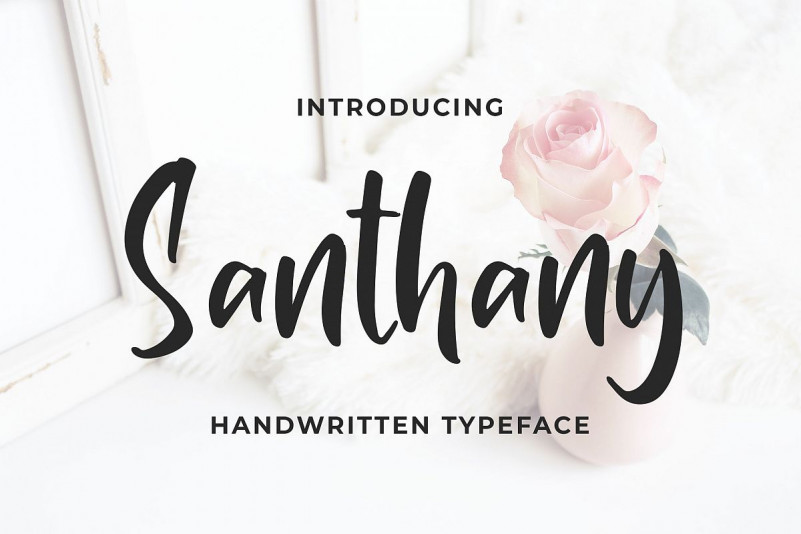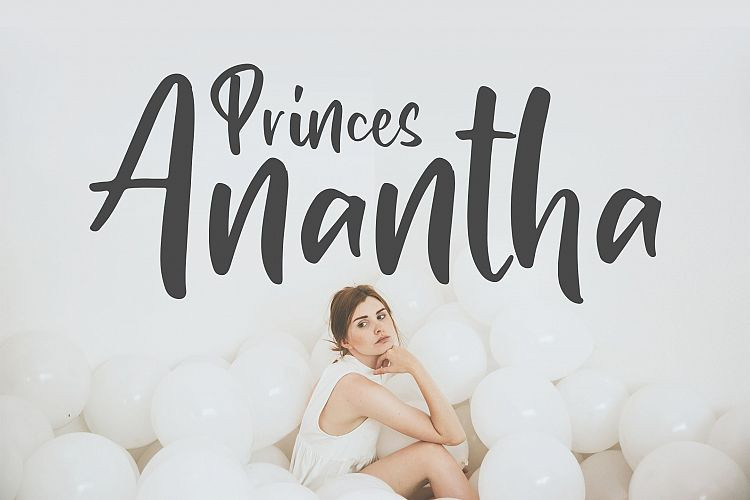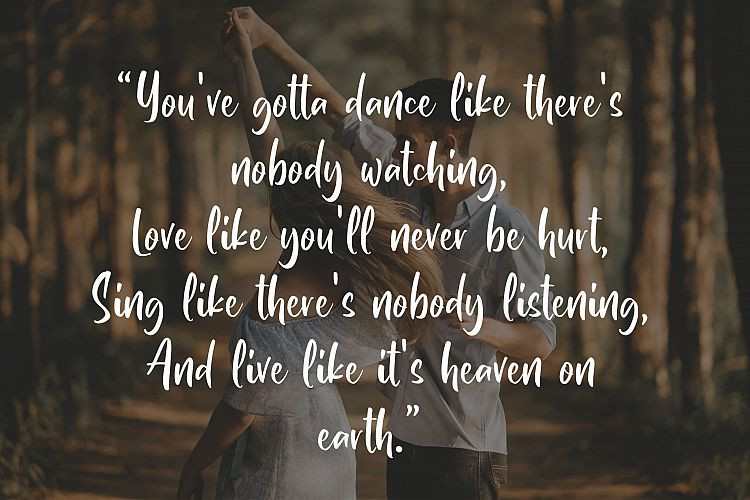
Santhany Font
ntroducing of our new product the name Santhany Handwritten Typeface. Santhany made with markers into digital this font is a fun theme very good for signature, poster, branding, logotype etc